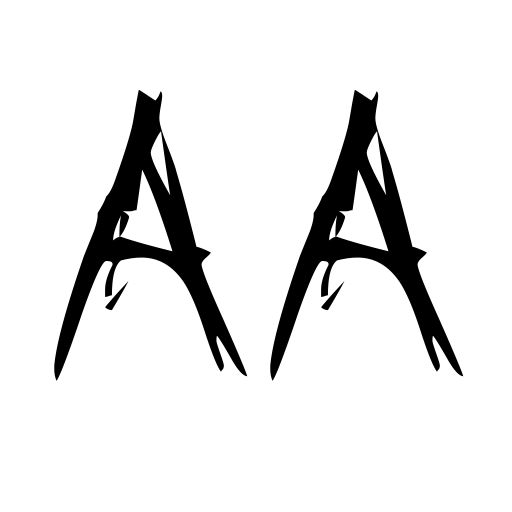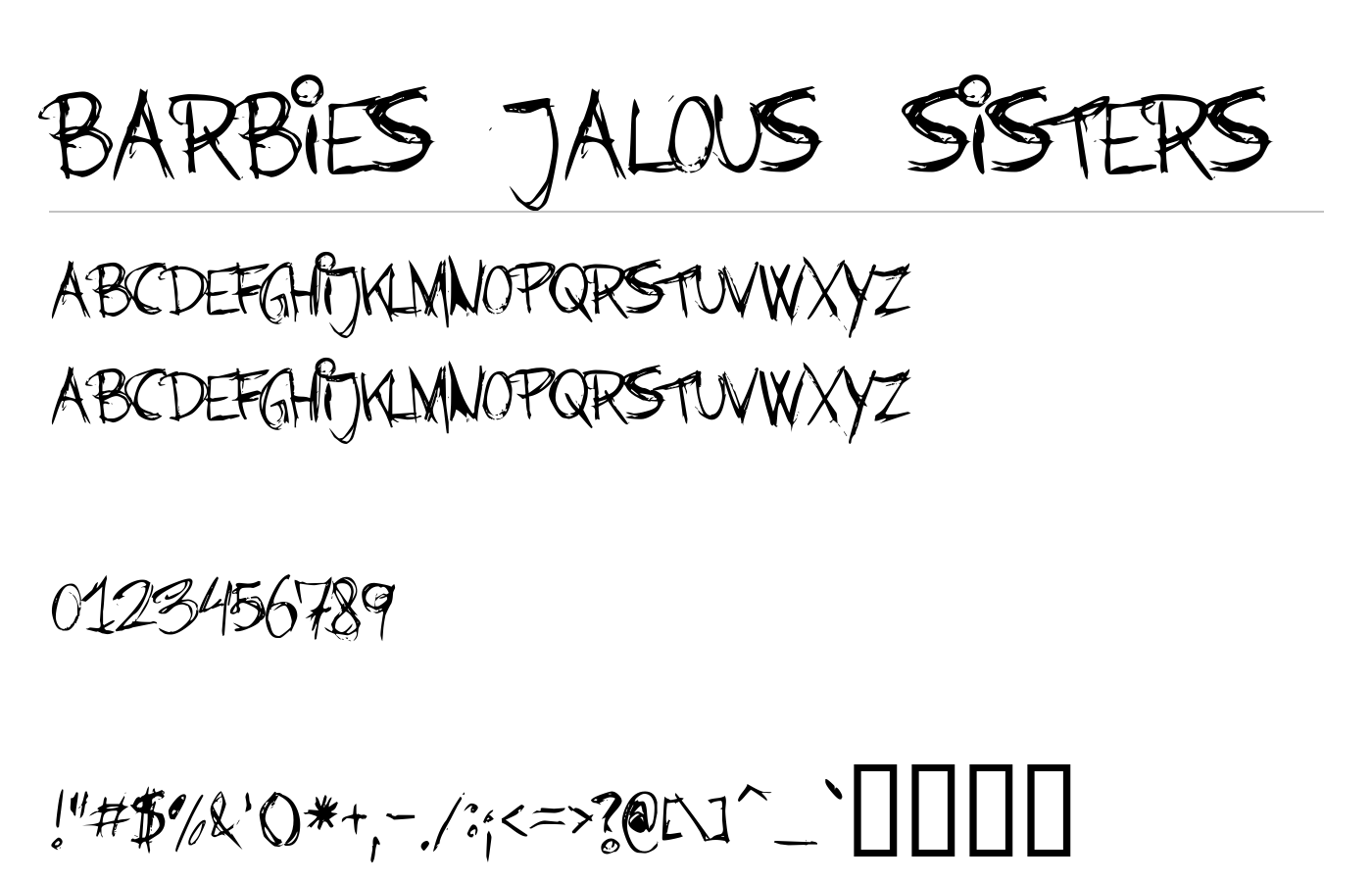
Barbies Jalous Sisters is a quirky, handwritten-style font featuring sharp, irregular strokes with a rough, sketchy texture that conveys an edgy, playful vibe. Its tall, narrow letterforms and high contrast between thick and thin lines give it a dynamic, expressive feel, perfect for creative projects that want to stand out with a bold and unconventional look. This font works well for posters, edgy branding, and artistic headlines where personality and a raw, hand-crafted aesthetic are key.
Barbies Jalous Sisters Font
About Barbies Jalous Sisters Font
| Font family | Barbies Jalous Sisters Font |
| Designer | Klaus Nielsen |